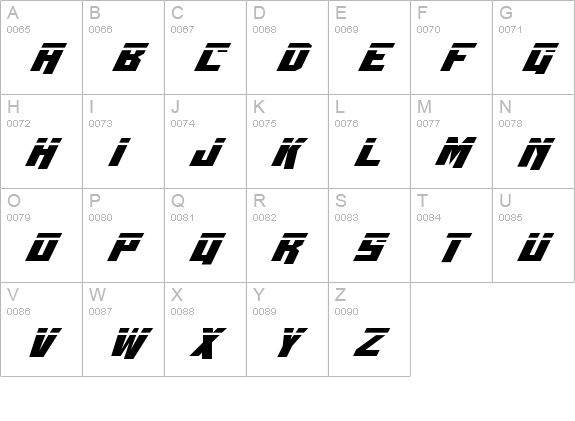
Introducing Whiskey Bravo Victor Laser Font, a stunning display typeface that exudes a sense of power and sophistication. With its bold lines and sharp edges, this font commands attention and leaves a lasting impression on any design project. Crafted with meticulous attention to detail, Whiskey Bravo Victor Laser Font is perfect for creating eye-catching headlines, logos, branding materials, posters, and more. Its contemporary design and distinctive character set make it a versatile choice for both digital and print applications. What sets Whiskey Bravo Victor Laser Font apart is its unique laser-cut effect, which adds an extra layer of depth and dimension to your designs. Each letter is meticulously crafted to give the illusion of being intricately carved out of solid metal, giving your text a futuristic and edgy feel. The best part? Whiskey Bravo Victor Laser Font is available free of charge to download at FontsMarket.com. That's right, you can elevate your designs without spending a dime. This font is a true gem for designers, allowing them to unleash their creativity without any limitations. So whether you're working on a daring poster design, a sleek logo, or a cutting-edge website, Whiskey Bravo Victor Laser Font is here to elevate your typography game. Its bold presence and unique laser effect will captivate your audience, leaving a lasting impression. Don't miss out on this exceptional font—download it for free at FontsMarket.com and take your designs to new heights.